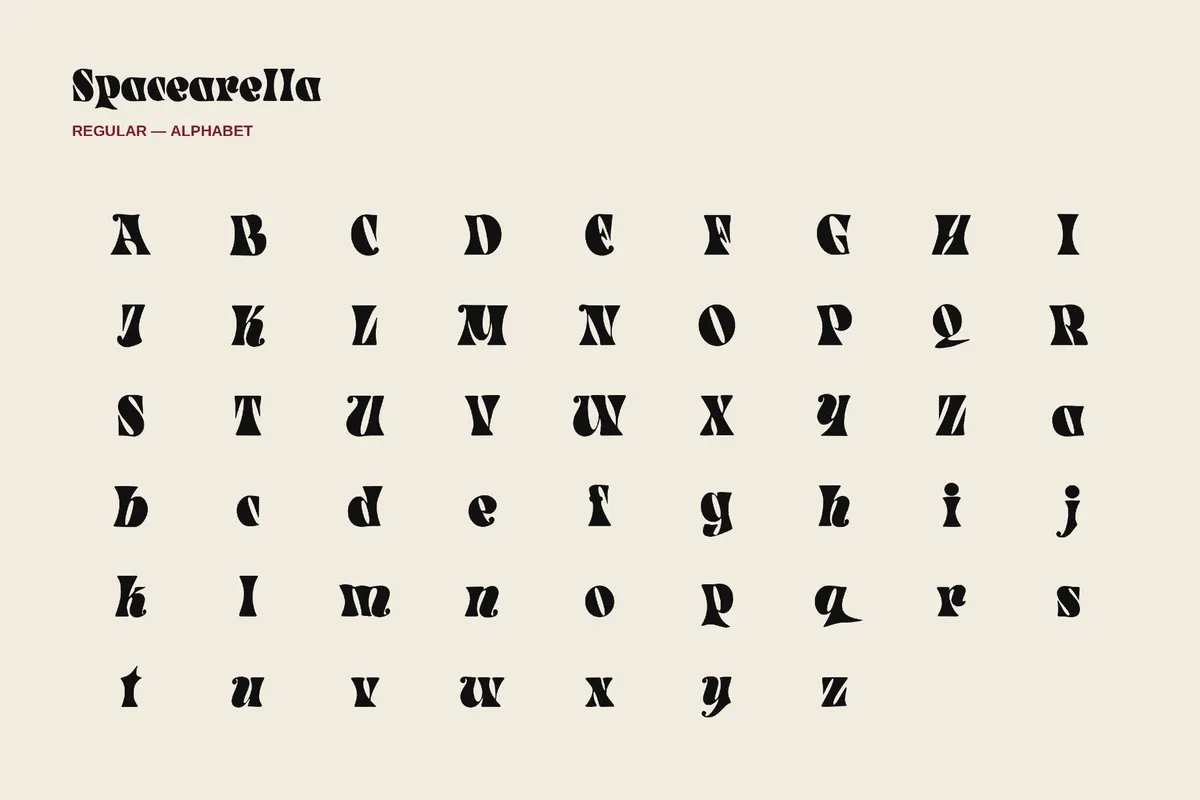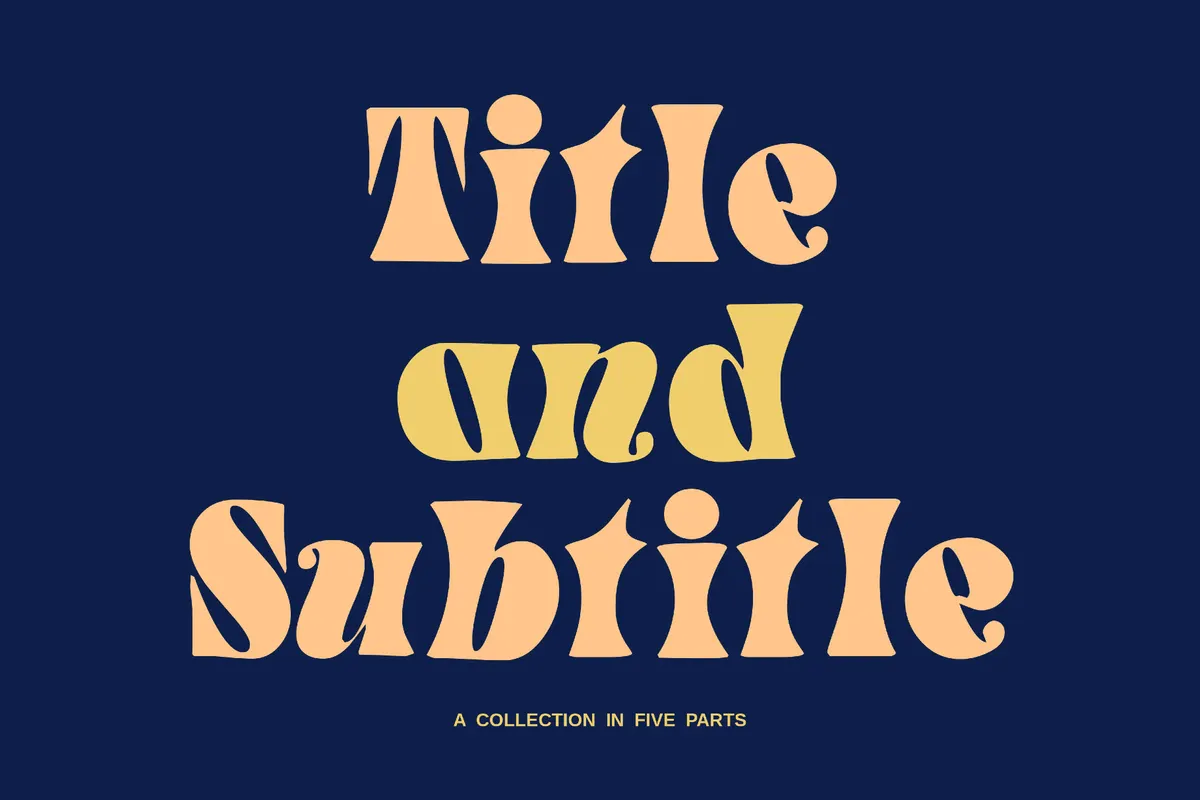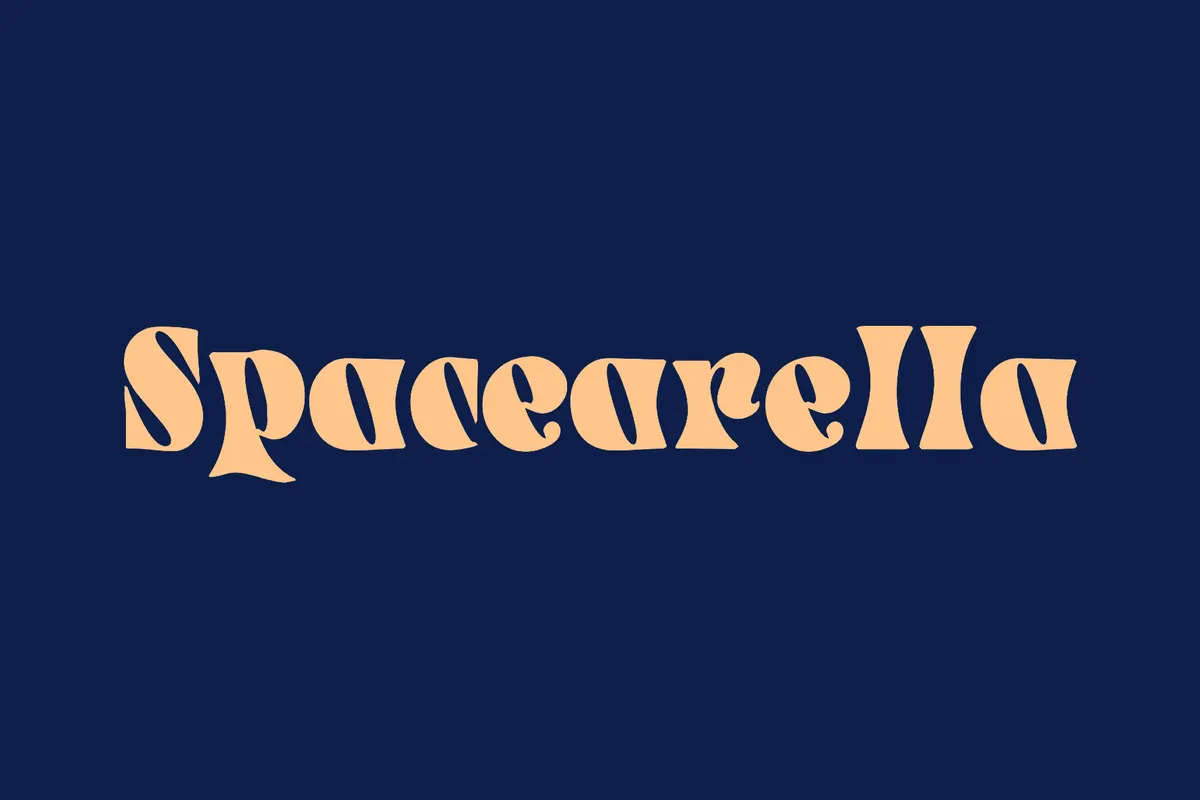
Spacearella - 70s Font
Spacearella drifts into a retro-futurist mood with rounded curves, soft volume, and a playful space-age sparkle. This distinct 70s groovy font evokes sci-fi posters, toy-store signage, and cartoon rockets. Its smooth shapes and buoyant rhythm fit children’s books, game logos, party invitations, toy packaging, festival posters, dessert branding, sticker designs, playful merch, app headers, and social media graphics.